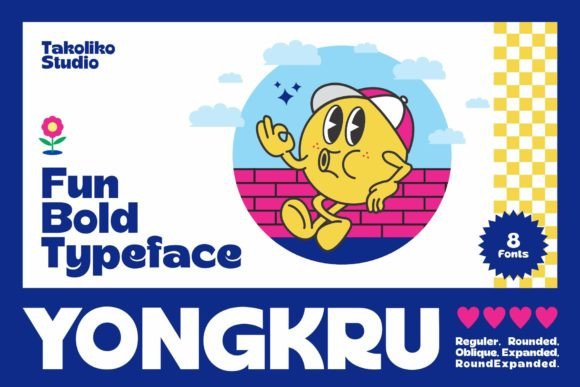
Ignite your imagination and step into a world of enchanting typography with Yongkru, the font that encapsulates the essence of joy, playfulness, and boundless creativity. This captivating display font, meticulously crafted by the visionary minds at takoliko, is more than just a collection of letters; it's an invitation to embark on a whimsical journey where your designs come alive with vibrant colors and infectious energy.
With its bold, playful strokes, Yongkru exudes a sense of carefree exuberance that is sure to leave a lasting impression on your audience. Inspired by the vibrant cultures and aesthetics of the 70s, 80s, and 90s, this font effortlessly captures the nostalgia of simpler times, evoking a sense of familiarity and warmth.
Whether you're designing invitations for a kid's party, creating eye-catching social media posts, or crafting playful branding materials, Yongkru is the perfect choice for adding a touch of fun and whimsy to your projects. Its versatility knows no bounds, allowing you to express your creativity in countless ways.
With Yongkru, you can effortlessly create designs that speak to your audience on an emotional level. Its bold, assertive strokes command attention, while its playful curves and adorable accents add a touch of charm and personality. Whether you're aiming for a retro-inspired aesthetic or a contemporary look with a twist, Yongkru seamlessly adapts to your vision.
But Yongkru is more than just a visually stunning font; it's also incredibly user-friendly. Whether you're a seasoned designer or just starting your creative journey, Yongkru's intuitive design makes it easy to incorporate into your projects. Its extensive character set and comprehensive language support ensure that your message is conveyed clearly and effectively, regardless of your target audience.